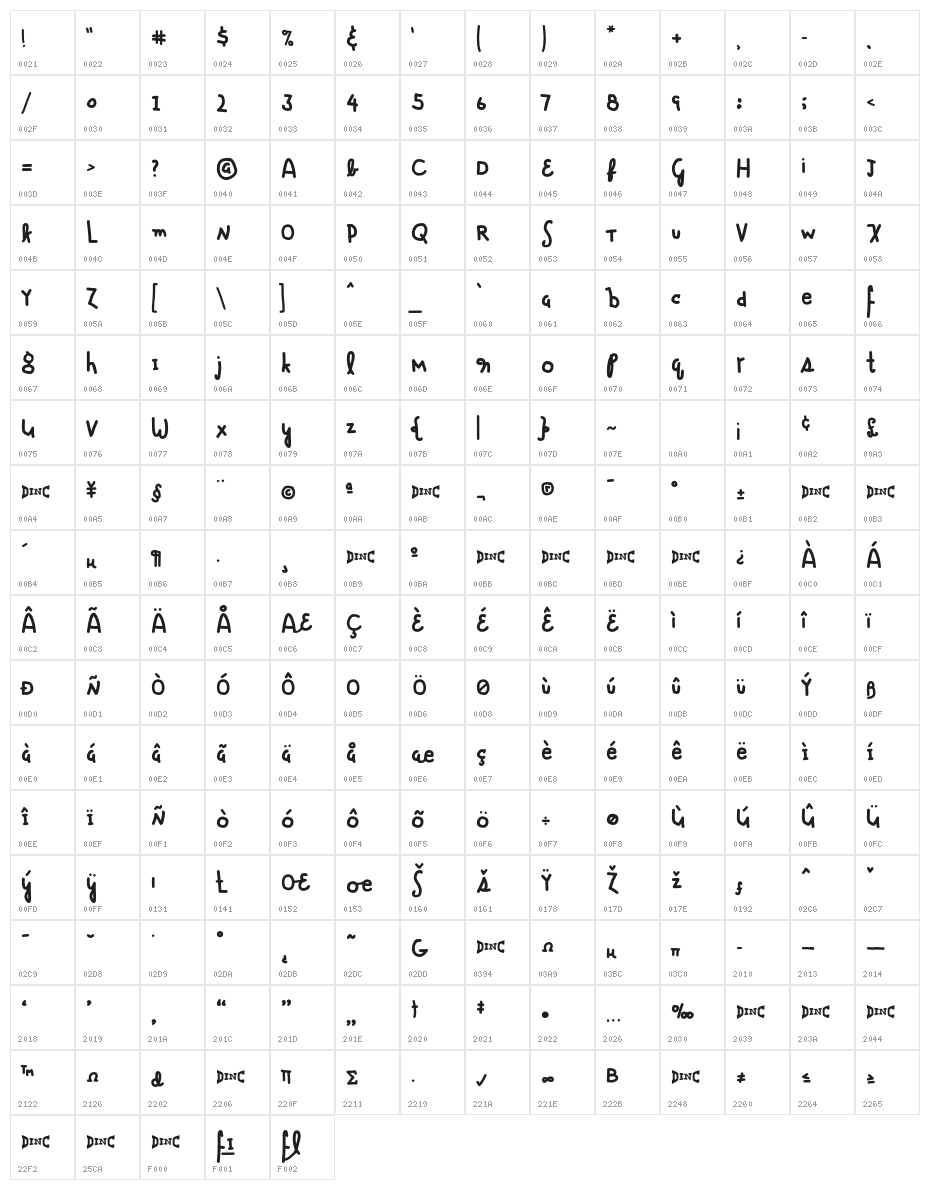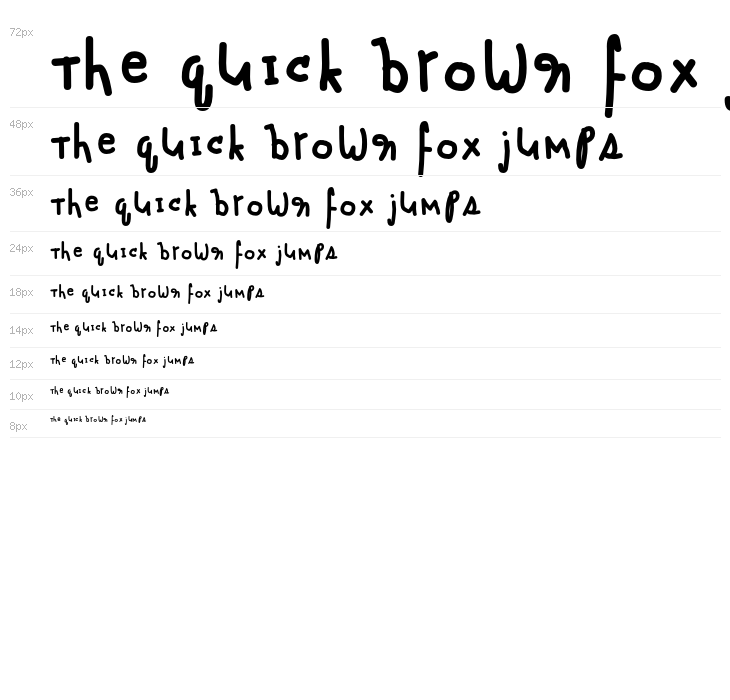
Alvin Font
Alvin Description
This playful and whimsical font features a handwritten style with a casual, informal appearance. The characters are slightly irregular, giving it a charming and approachable feel. The strokes are bold and rounded, creating a sense of friendliness and warmth. The uppercase and lowercase letters maintain a consistent style, with some letters exhibiting unique flourishes that add personality. The numbers and special characters are designed to match the overall playful aesthetic, making this font suitable for creative and fun projects.
| Proposed Projects | Ideal for children's books, greeting cards, playful branding, and creative posters. |